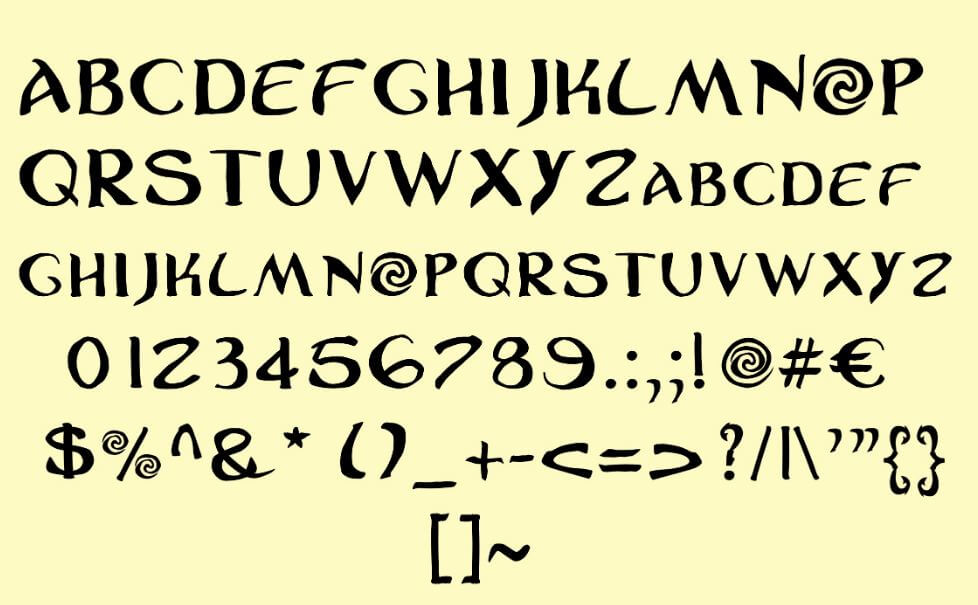
Moanas Font
Moanas font is an excessive-excellent Disney font that’s designed by using joannavu and is to be had for free down load and individual use. The free variation supplies all uppercase and lowercase letters that look like bavterlay font .
Whilst some grotesks distort their letterforms to force a rigid rhythm, It doesn’t compromise, permitting letters to be settled into their typical width.
Style Of Moanas Font